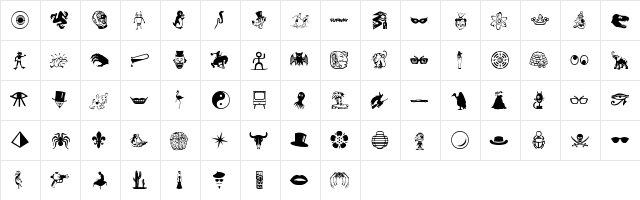
Funway 1 Regular
Design Context for Funway 1 Typeface
Funway 1 has an approachable, lighthearted character — its loose, expressive forms are well-suited to children's content, casual branding, and fun-first design.
Font Pairing: Pairs well with a rounded or humanist sans for body copy, maintaining the friendly tone without relying on Funway 1 to carry extended reading.
Pro Tip: Use Funway 1 at larger display sizes where its expressive character can land. Pair with a clean, simple sans for body copy to maintain readability.